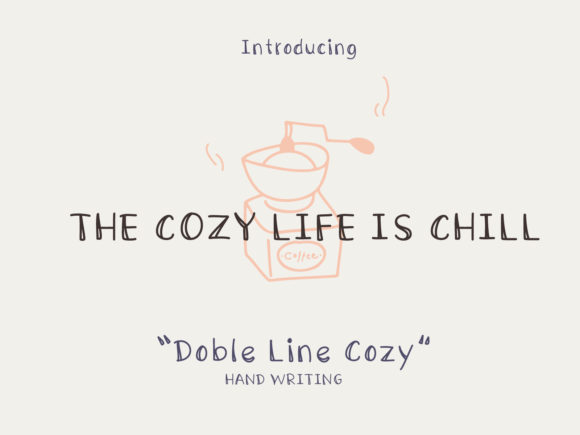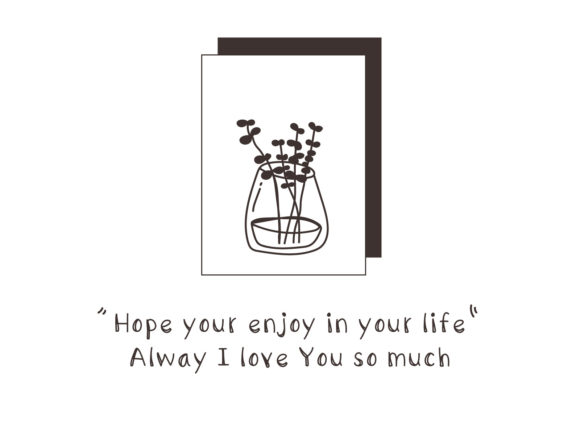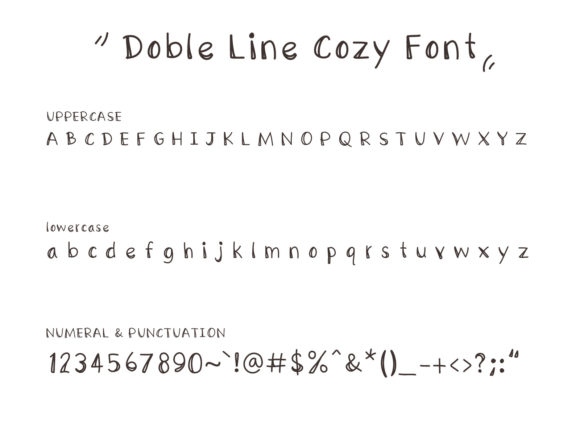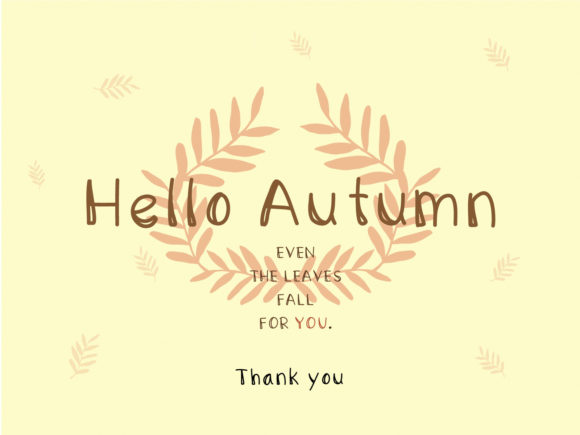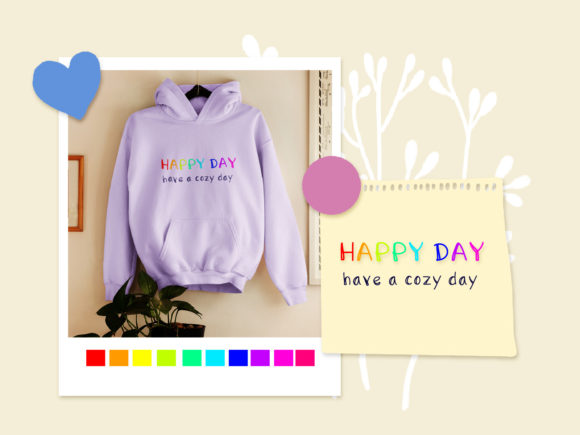
Double Line Cozy Font
About Double Line Cozy Font
Double Line Cozy is a sweet and simple handwritten font with a special touch. It maintains its cuteness and feels warm and relaxing. Also, the printing of any design will appeal to a wide range of crafty ideas, from letterheads and titles to stationery.